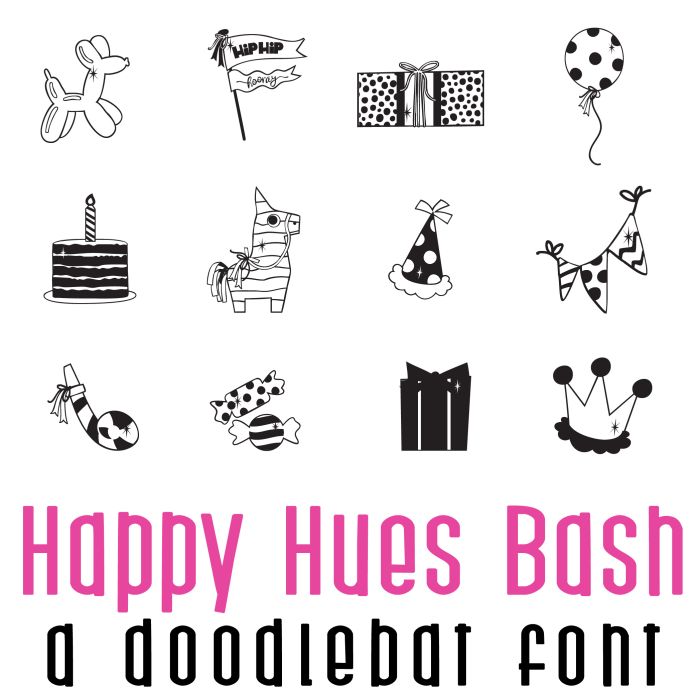
Happy Hues Bash Doodlebat Font is a fun and festive dingbat font featuring 26 perfect images for birthday celebrations and party invitations. It features a variety of party-themed icons and doodles, such as balloons, cakes, confetti, and more. This playful font adds a whimsical touch to any design related to celebrations and events.